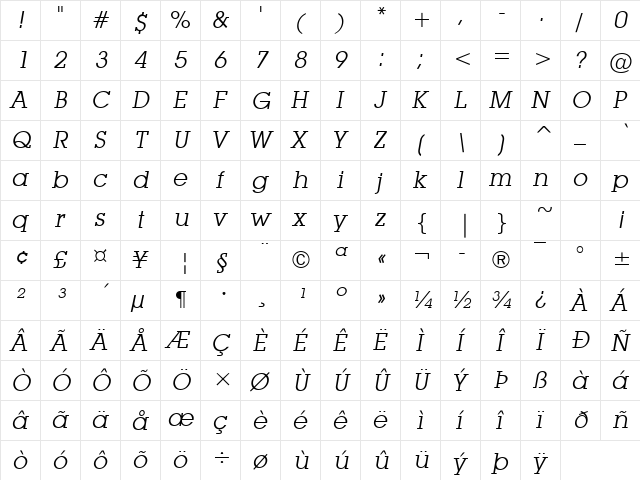
Mason Italic Font Preview
Mason Italic
Design Context for Mason Typeface
Mason takes a measured approach to typography — its balanced proportions and neutral character make it a reliable workhorse for both digital and print work. The slanted form adds forward momentum and visual energy.